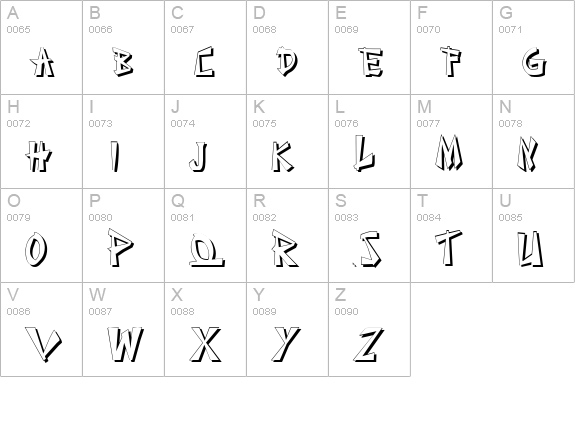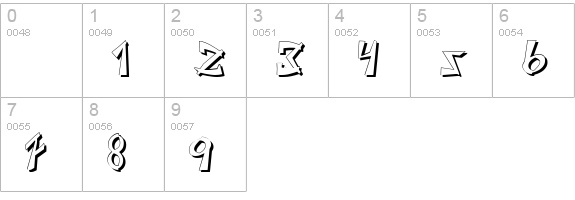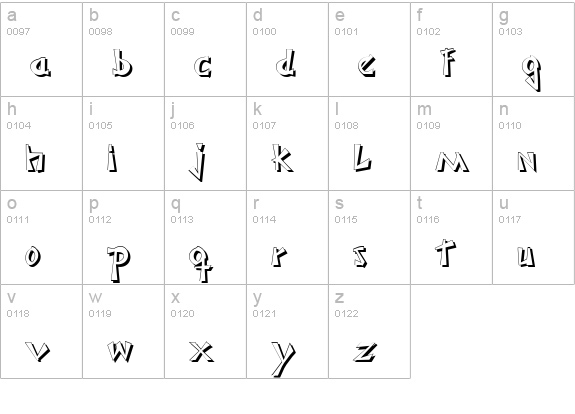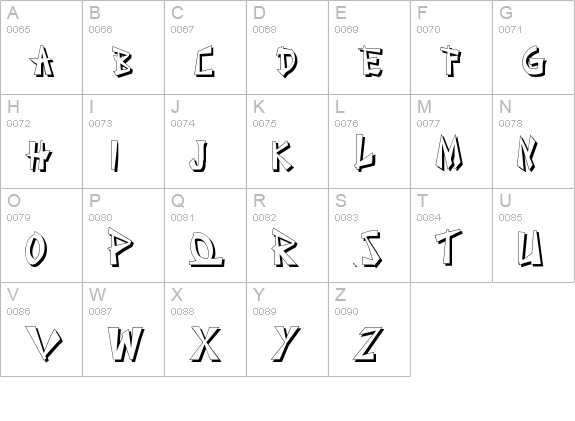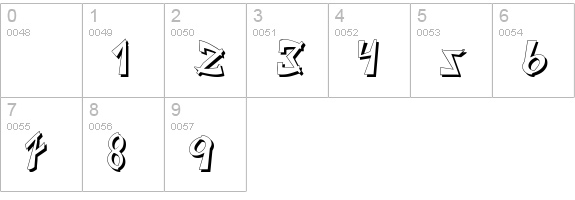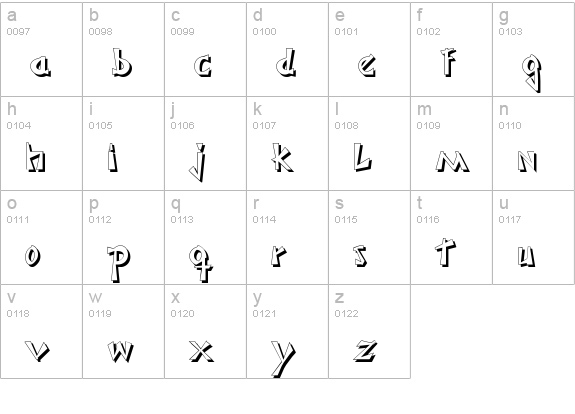
JaponesaShadow Font Details
JaponesaShadow font is a stunning and captivating typeface that beautifully combines Japanese aesthetics with a touch of shadowy elegance. This unique font exudes a sense of mystery and intrigue, making it perfect for adding a touch of sophistication to any design project. With its intricate and fluid strokes, JaponesaShadow font captures the essence of traditional Japanese calligraphy, while the subtle shadow effect adds depth and dimension to each character. The result is a visually striking font that commands attention and stands out from the crowd. One of the best things about JaponesaShadow font is that it is free! Yes, you read that right. This remarkable font can be freely downloaded from FontsMarket.com. Whether you are a professional designer or a hobbyist, this font is accessible to everyone, allowing you to enhance your projects without breaking the bank. JaponesaShadow font is highly versatile and can be used in a variety of design applications. From logos and branding to invitations and posters, this font will bring an air of sophistication to any project. Its unique combination of Japanese elegance and shadowy allure makes it perfect for creating eye-catching headlines, attention-grabbing titles, or adding a touch of artistic flair to any design element. So why wait? Go ahead and unleash your creativity with JaponesaShadow font. Download it for free at FontsMarket.com and let it inspire your next design masterpiece. With its captivating style and freely available access, this font is a must-have for any designer looking to make a lasting impression.